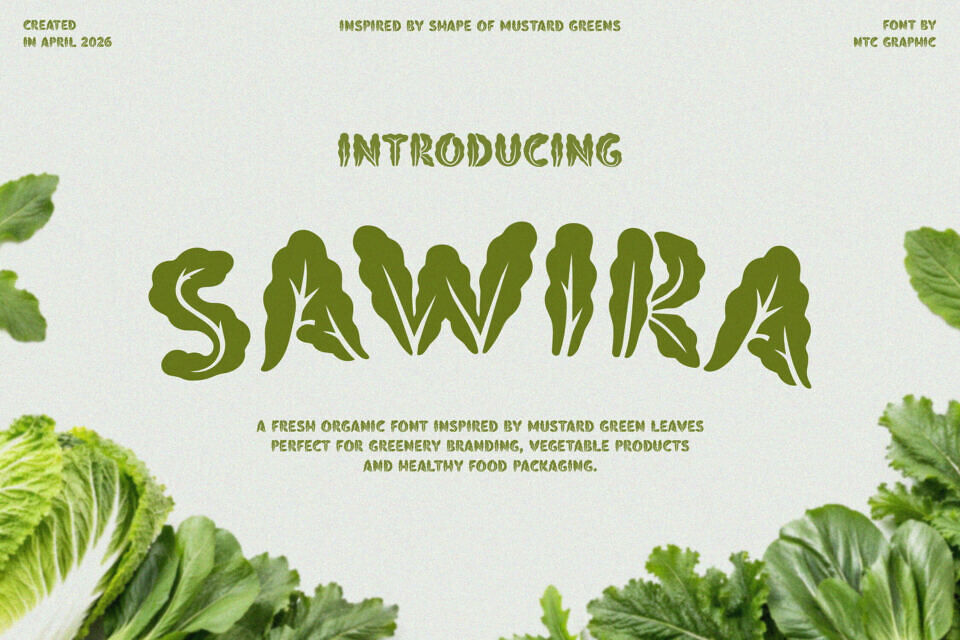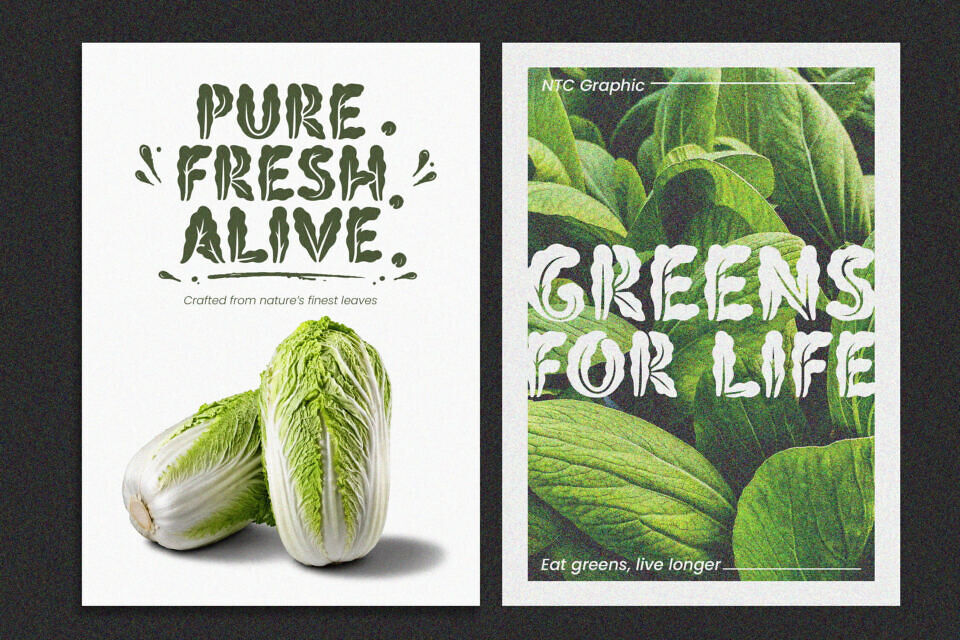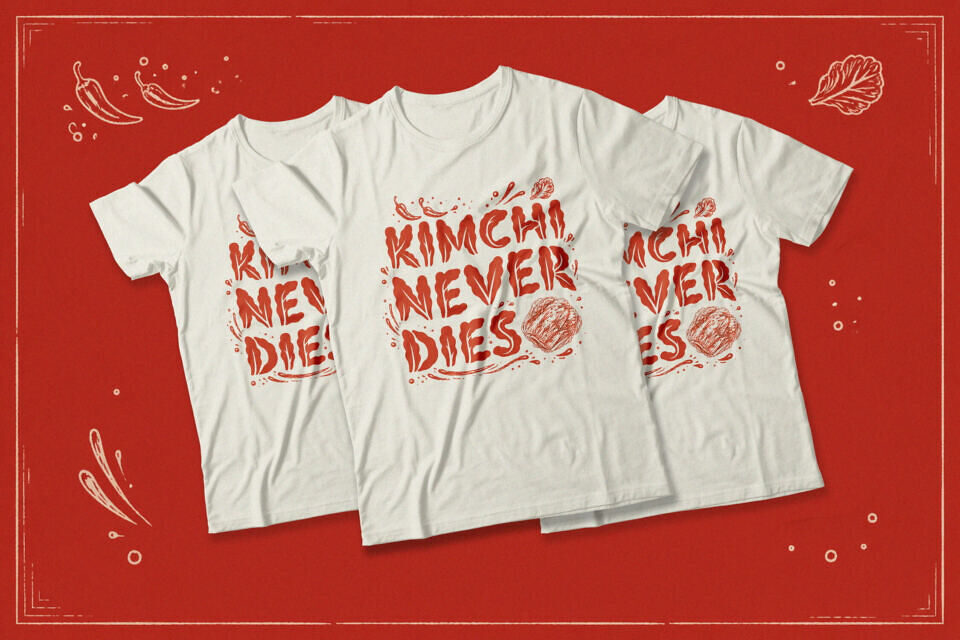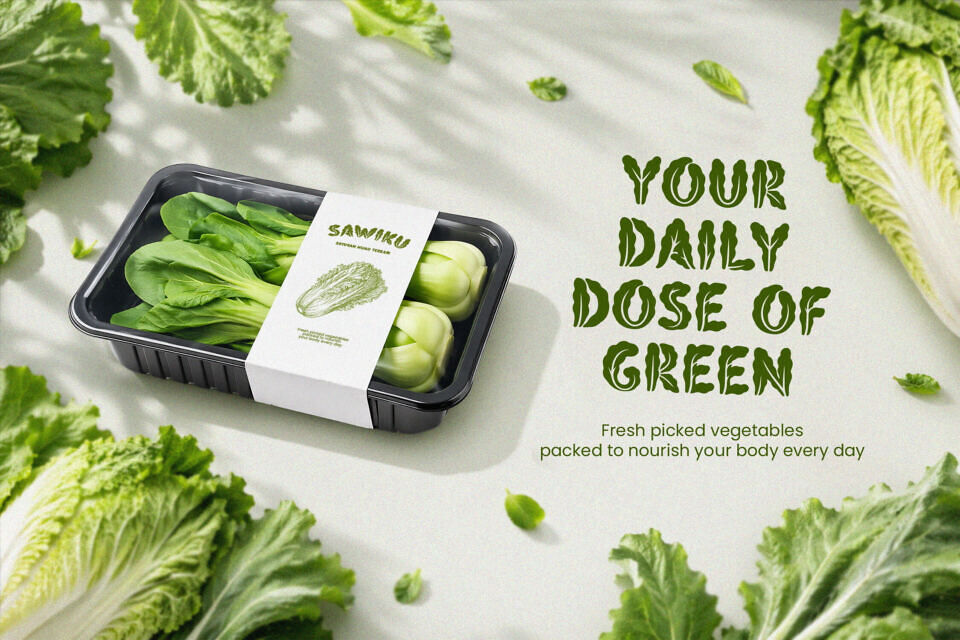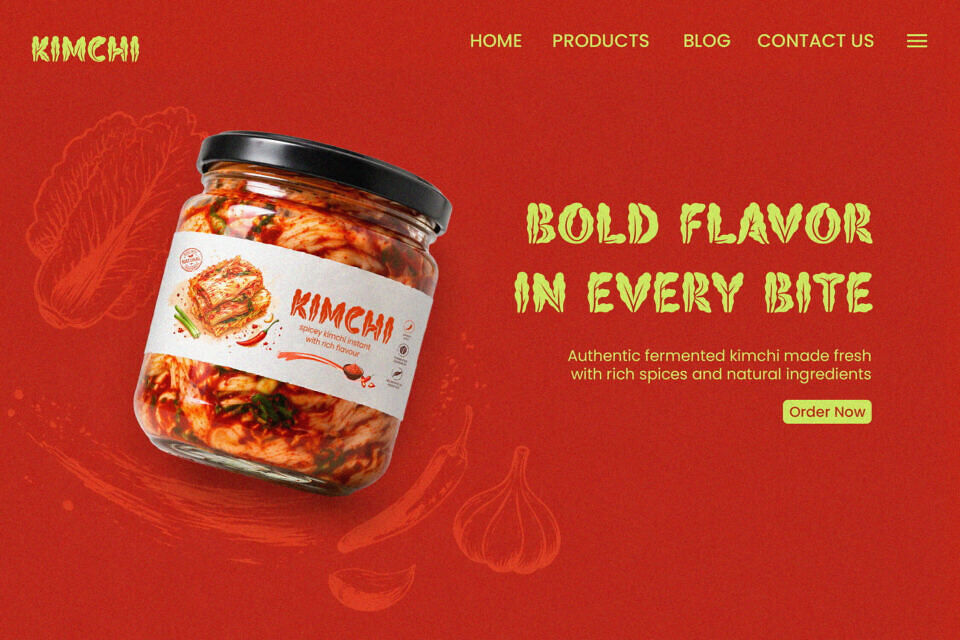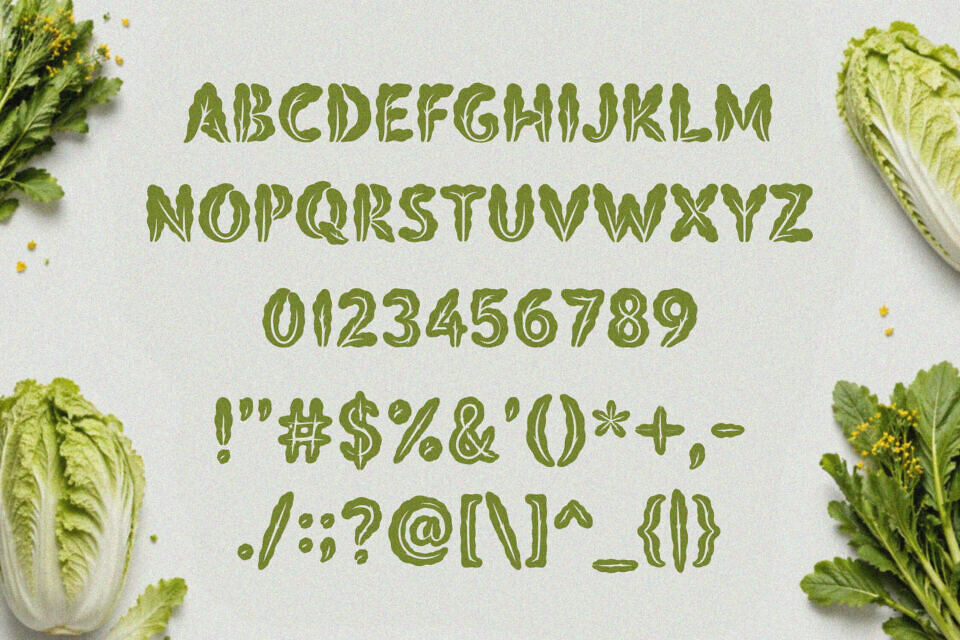
Sawira Font
Sawira is a unique organic display font inspired by the natural shapes of mustard green leaves. Featuring bold, irregular, and leafy letterforms, this font brings a fresh, natural, and handcrafted feel to your designs.
Designed to capture the essence of greenery and organic living, Sawira is perfect for projects that need a strong natural identity and eye-catching typography. Ideal for branding, logo design, packaging, vegetable products, organic food brands, healthy lifestyle products, posters, and merchandise design.